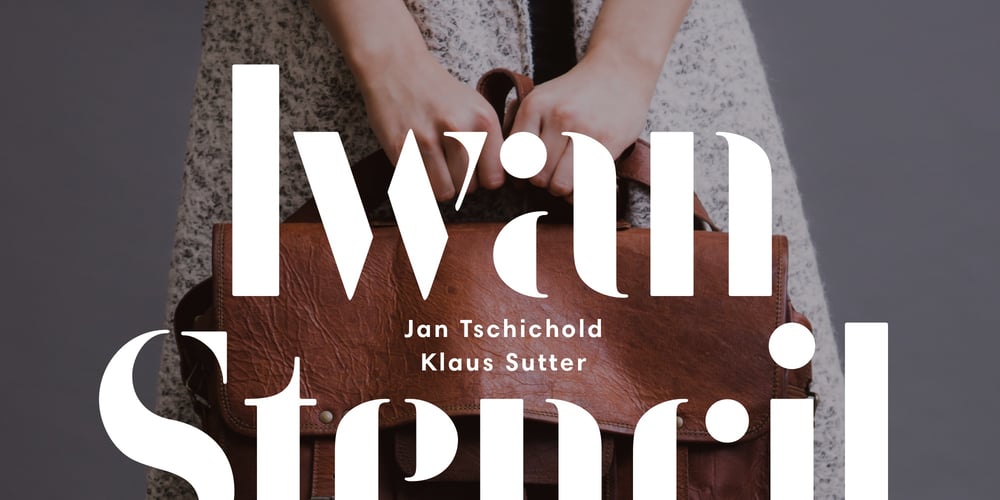
Iwan Stencil Font Family was designed by Jan Tschichold, Klaus Sutter and published by Linotype. Iwan Stencil contains 1 styles and family package options. Iwan Stencil is a new revival of an old display typeface. Based on type originally designed by Jan Tschichold in 1929, the style was revived by Klaus Sutter in 2008. The letterforms in this peculiar design are very high contrast; all of the thin bits are much thinner than the thick parts. They have a modern, upright axis. All in all, the creation has a bit of a Bodoni-gone-crazy touch. The thin elements are the unique part of the design that binds this face together. They almost naturally fade away in the stencil gaps (or pylons), making you wonder if you are really looking at a stencil face at all. These thins contribute greatly to the typeface’s overall serif-style, making the design at least a semi serif typeface, if not a full serif one. The lowercase n, for instance, has no serifs of its own, but many of the other letters have clear ones, or serif-like terminals. A serif stencil face is a peculiar variety, especially in this day and age, but in the past they were much more common, if not the norm, The Iwan Stencil typeface has only one weight. Naturally, this is just for display. Use Iwan Stencil to cut real stencils, or only to create the effect of stenciled type in your design work. Ivan Stencil includes all of the characters that you have come to expect in a font. Just because this design was originally made in 1929 does not mean that is has a 1929 character set. Instead, it includes a 21st century, with extended European language support Jan Tschichold, who we have to thank for today’s Iwan Stencil inspiration, was a man of many faces. A trained calligrapher who went on to codify the New Typography, would go on to become a teacher, a classical book designer, and the creator of the Sabon typeface. Like all young designers, he was occasionally in need of money. Before his emigration from Germany in 1933, he took on many kinds of commissions. In the late 1920s, a time full of waves of economic turmoil within Germany and across the world, he began designing a typefaces for different European companies, mostly display things like this. For a time during the mid-1920s, Jan Tschichold went by the name Iwan” “